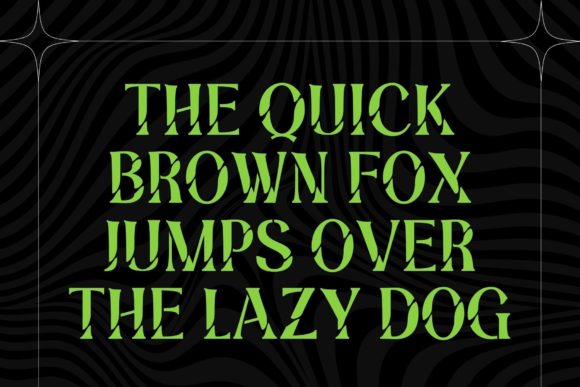
Angel Stencil Font
Angel Stencil is an elegant, contemporary and stylish serif font. It is perfect for product packaging, branding project, magazine covers, social media, wedding, or just used to express words above the background.